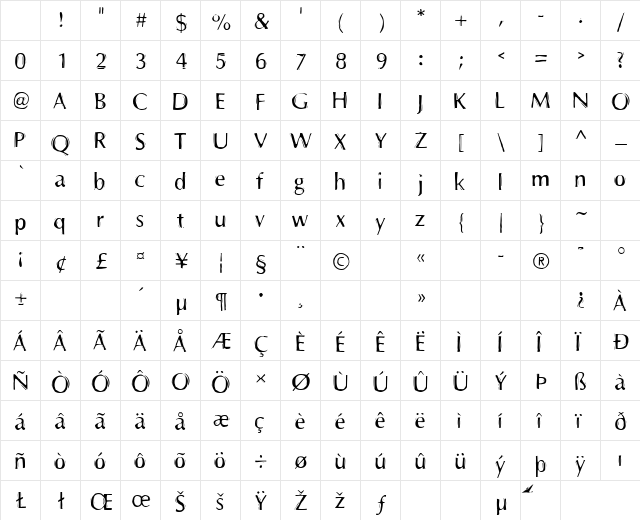
Complete P22Prehistoric Pen glyph index. Displaying only characters natively supported by P22Prehistoric Pen font.
P22Prehistoric is a composed and adaptable typeface that performs quietly and consistently across a wide range of design contexts.
Pro Tip: Use P22Prehistoric in both headline and body roles to test its range before committing to a single application.